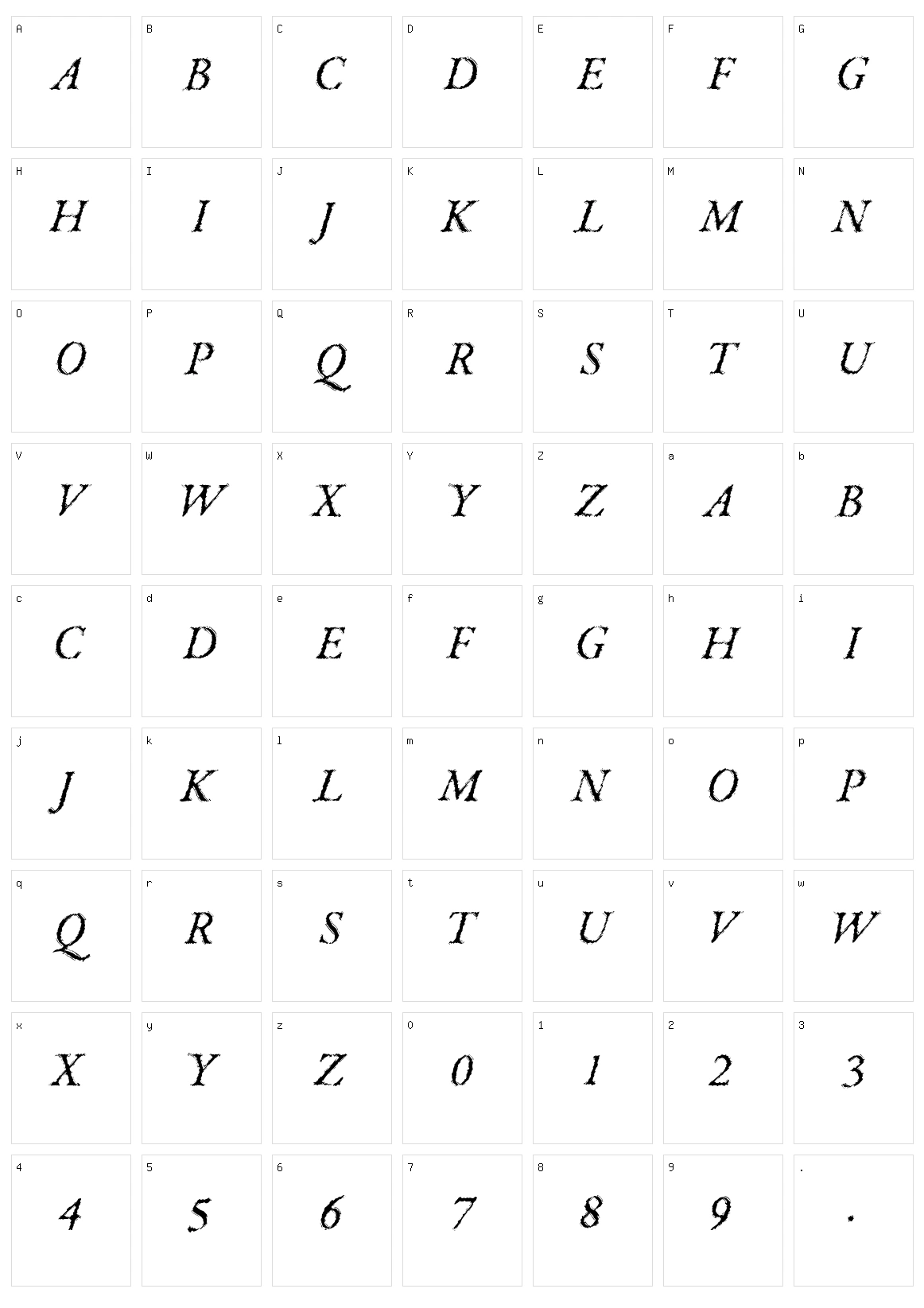
The free font Parkinson is carefully designed by Cloutierfontes, showcasing a thoughtful balance of creativity and usability and falls under the Distorted font style. When you download the ZIP file, it contains only 65.78 KB of font files, making it lightweight and quick to download. Please review the license details below to understand permitted usage and distribution rights. If license information is not available, we recommend using this font for personal projects only or contacting the author directly for commercial usage permissions.